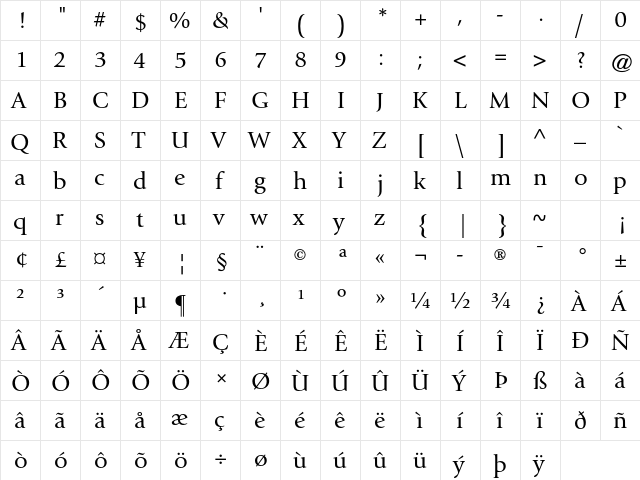
ITC Giovanni Std Book Font Preview
ITC Giovanni Std Book
ITC Giovanni Std Book Font Details
| Designer | Robert Slimbach |
Design Context for ITC Giovanni Std Typeface
ITC Giovanni Std is a composed and adaptable typeface that performs quietly and consistently across a wide range of design contexts.